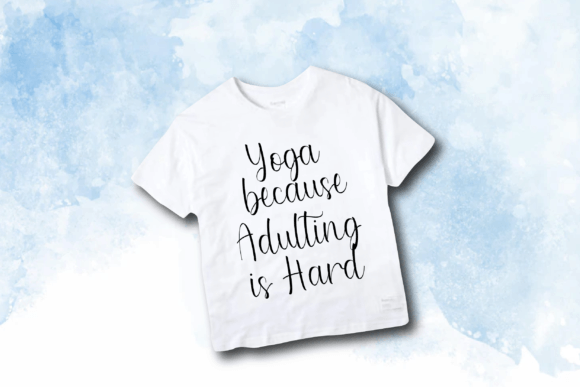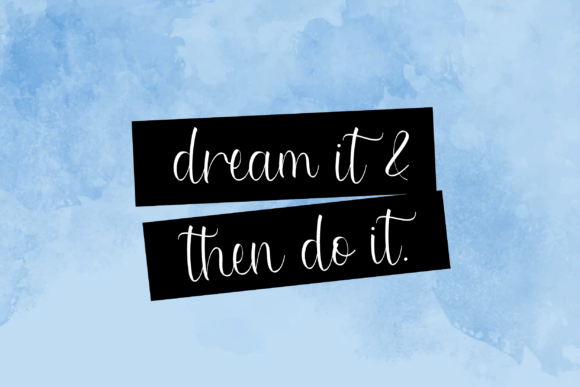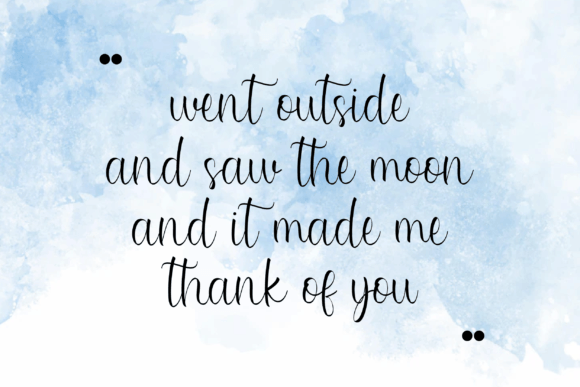
Introducing Charleigh Font: Elevate Your Designs with Elegance and Flair
Are you on the hunt for a font that exudes sophistication, whimsy, and a touch of elegance? Look no further than Charleigh, a stunning handwritten font that is sure to breathe life into your creative projects. With its delicate, flowing lines and beautifully balanced characters, Charleigh is the perfect addition to any designer’s toolkit.
The Charleigh Difference: A Delicate yet Impactful Font
Charleigh is more than just a font – it’s an experience. Its intricate, hand-crafted design lends a touch of luxury and refinement to any project, making it ideal for designers and crafters who want to create something truly special. Whether you’re working on a branding campaign, a wedding invitation, or a DIY craft project, Charleigh’s elegant lines and curves are sure to make your design stand out.
Key Features of Charleigh Font
• Delicate and Elegant: Charleigh’s flowing lines and delicate curves give it a sophisticated, high-end feel that’s perfect for designs that require a touch of elegance.
• Well-Balanced Characters: Each character in the Charleigh font is carefully crafted to ensure that it looks beautiful on its own and in combination with other characters.
• Versatile: Charleigh’s unique yet versatile design makes it suitable for a wide range of projects, from branding and advertising to crafting and DIY.
• Handwritten with Love: Charleigh is a handwritten font, giving it a personal and human touch that’s hard to replicate with machine-generated fonts.
How to Use Charleigh Font in Your Designs
Charleigh is an incredibly versatile font that can be used in a variety of design contexts. Here are a few ideas to get you started:
• Branding and Logo Design: Use Charleigh to create a sophisticated and memorable brand identity that will set you apart from the competition.
• Wedding and Event Planning: Add a touch of elegance to your wedding invitations, save-the-dates, and other event materials with Charleigh.
• Crafting and DIY: Use Charleigh to add a personal touch to your craft projects, such as handmade cards, gift tags, and scrapbooking.
• Digital Design: Charleigh is perfect for digital designs, including social media graphics, blog headers, and website titles.
Tips for Getting the Most Out of Charleigh Font
To truly make Charleigh shine in your designs, here are a few tips to keep in mind:
• Experiment with Pairings: Charleigh pairs beautifully with a variety of fonts, so don’t be afraid to experiment with different combinations to find the perfect match for your design.
• Play with Size and Color: Charleigh’s delicate lines and curves look beautiful in a range of sizes and colors, so experiment to find the perfect look for your design.
• Add a Personal Touch: Charleigh’s handwritten design makes it the perfect font for adding a personal touch to your designs. Consider using it for quotes, testimonials, or other personal messages.
In conclusion, Charleigh font is a stunning addition to any designer’s toolkit. Its delicate, elegant lines and beautifully balanced characters make it the perfect choice for a wide range of design projects. Whether you’re a seasoned designer or a crafty DIY enthusiast, Charleigh is sure to inspire your creativity and help you bring your ideas to life.